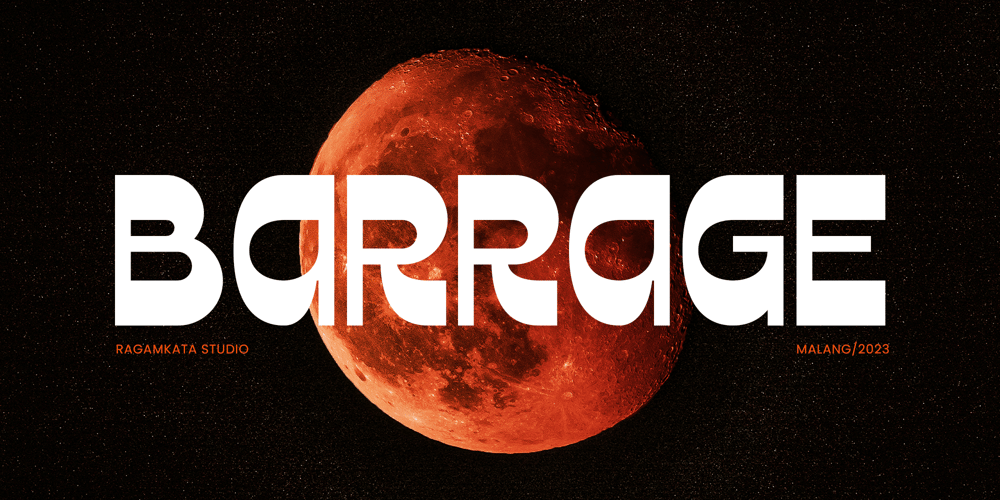
Barrage
Barrage font
Barrage Font Family was designed by Yogiswhara Dio Prakoso Riadi and published by RagamKata. Barrage contains 1 styles and family package options. Barrage Display FontBarrage presents a modern take on typeface design, merging cheerful boldness with artistic touches. Each letter is meticulously shaped, striking a balance between confidence and elegance. The box-like lines provide a sturdy foundation, while the subtle curves add a delightful creative flair.With its lively boldness and delicate lines, Barrage conveys courage and a positive personality.